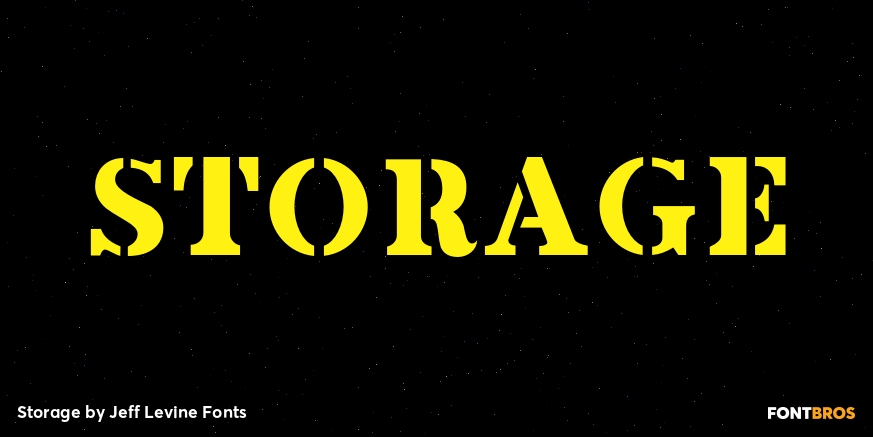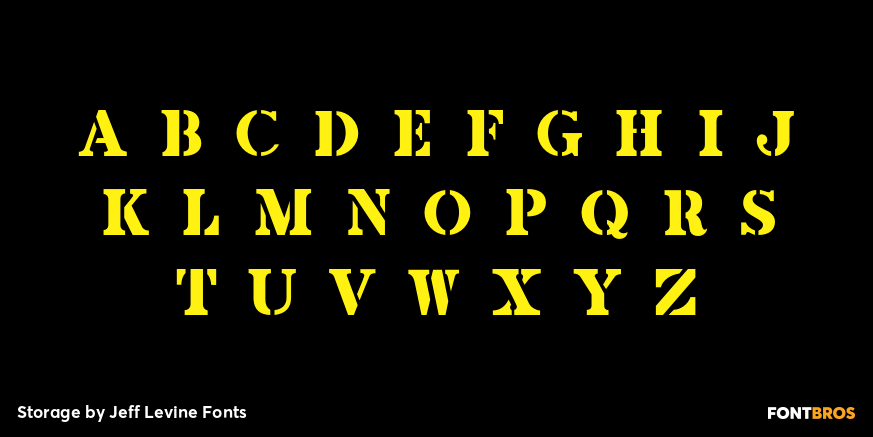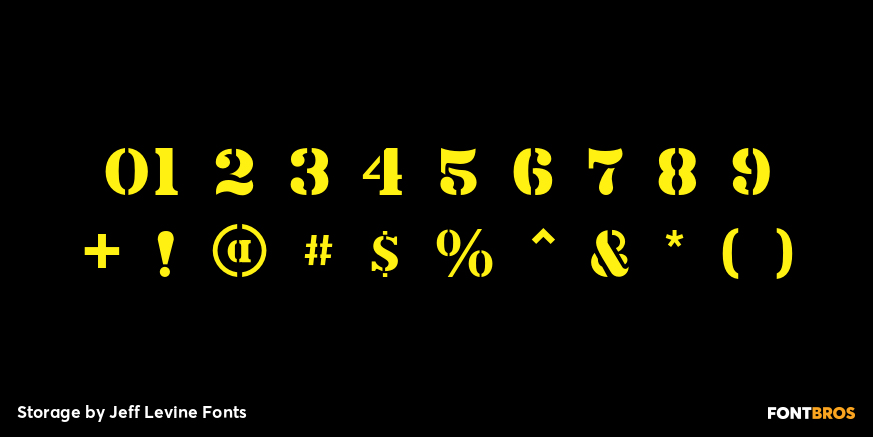
Storage
The range of subtle differences in the many different sized lettering stencils of the 1940s and 1950s allows for a wonderful library of authentic-looking stencil fonts.
Storage JNL is another Roman (serif) type design by Jeff Levine and modeled from a 1950s stencil set.